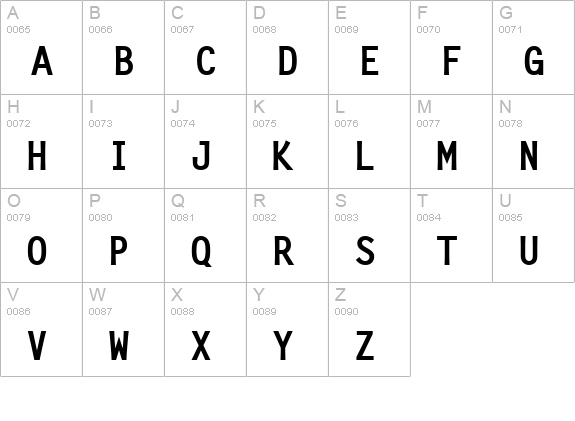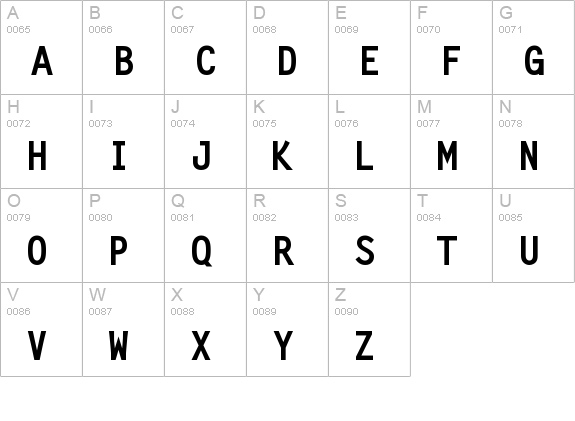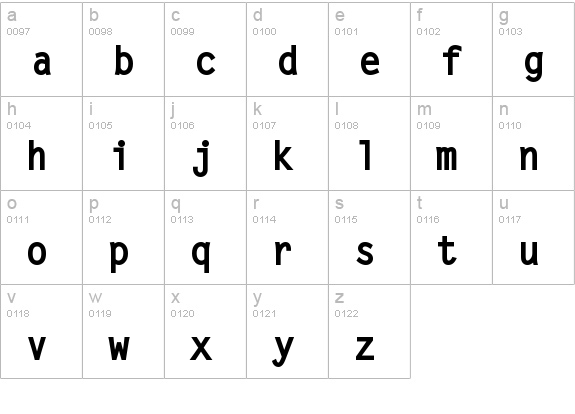
LetterGotLCYBol Font Details
Introducing LetterGotLCYBol, a captivating font that will surely leave a lasting impression! This remarkable typeface effortlessly combines elegance with a touch of modernity, making it the perfect choice for a wide range of creative projects. With its bold and dynamic strokes, LetterGotLCYBol commands attention and adds a sense of sophistication to any design. Whether you are crafting a logo, designing a website, or creating eye-catching marketing materials, this font will elevate your work to new heights. One of the most remarkable aspects of LetterGotLCYBol is that it is available for free download at FontsMarket.com. Yes, you read that right - this incredible font can be yours without spending a dime! FontsMarket.com is renowned for offering a vast collection of high-quality fonts, and LetterGotLCYBol is no exception. Downloading and installing this font is a breeze, ensuring that you can get started on your creative projects in no time. The versatility of LetterGotLCYBol allows it to shine in both digital and print formats, giving you the freedom to experiment and unleash your creativity. With its clean and legible design, LetterGotLCYBol is not only visually stunning but also easy to read. This makes it an excellent choice for various applications such as headlines, titles, captions, and body text. No matter how you choose to use it, this font will effortlessly captivate your audience and deliver your message with style. So why wait? Take advantage of this fantastic opportunity to enhance your design projects with LetterGotLCYBol. Download it for free at FontsMarket.com today and unlock a world of creative possibilities. Whether you are a professional designer or a passionate hobbyist, this font is a must-have in your typographic toolkit. Don't miss out on the chance to elevate your designs with LetterGotLCYBol - the possibilities are endless!